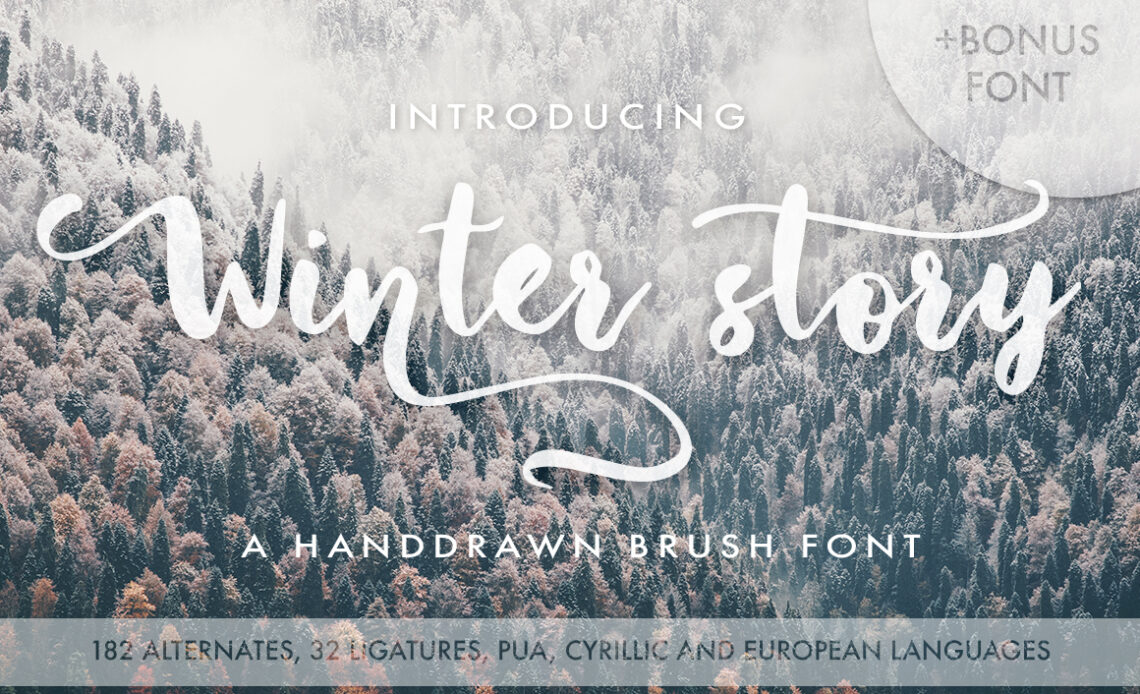
Winter Story Font
Behold, the Winter Story Font, a breathtaking script font crafted by the visionary minds at Red Ink. This font is a symphony of elegance, whimsy, and enchantment, designed to evoke the magic of winter's embrace. Dive into its swirls and flourishes, and let your imagination dance amidst its icy calligraphy.
Winter Story is a visual masterpiece, its characters leaping off the page like snowflakes in a gentle breeze. Its delicate lines and graceful curves capture the essence of a snowy landscape, creating a sense of serenity and wonder. Whether you're a designer, a blogger, a content creator, or simply a lover of beautiful typography, this font will elevate your creations to new heights of artistry.
With Winter Story, your words will take on a life of their own, captivating your audience with their charm and grace. Its versatility knows no bounds, lending itself effortlessly to invitations, greeting cards, logos, posters, social media posts, website designs, and any other project that craves a touch of enchantment.
Imagine your wedding invitations adorned with Winter Story's elegant script, the words "Forever and Always" swirling together like snowflakes in a winter waltz. Picture your social media posts sparkling with Winter Story's icy allure, drawing followers into your world of wonder and inspiration.
This font is more than just a collection of letters; it's a gateway to a realm where imagination reigns supreme. Its characters hold the power to transport you to a winter wonderland, where dreams come alive and stories unfold with every turn of the page.
So, step into the realm of Winter Story, and let your creativity flourish amidst its enchanting embrace. Embrace the magic of winter's artistry, and watch as your words dance and shimmer with newfound beauty. This font is your muse, your companion on a journey into the heart of creativity.